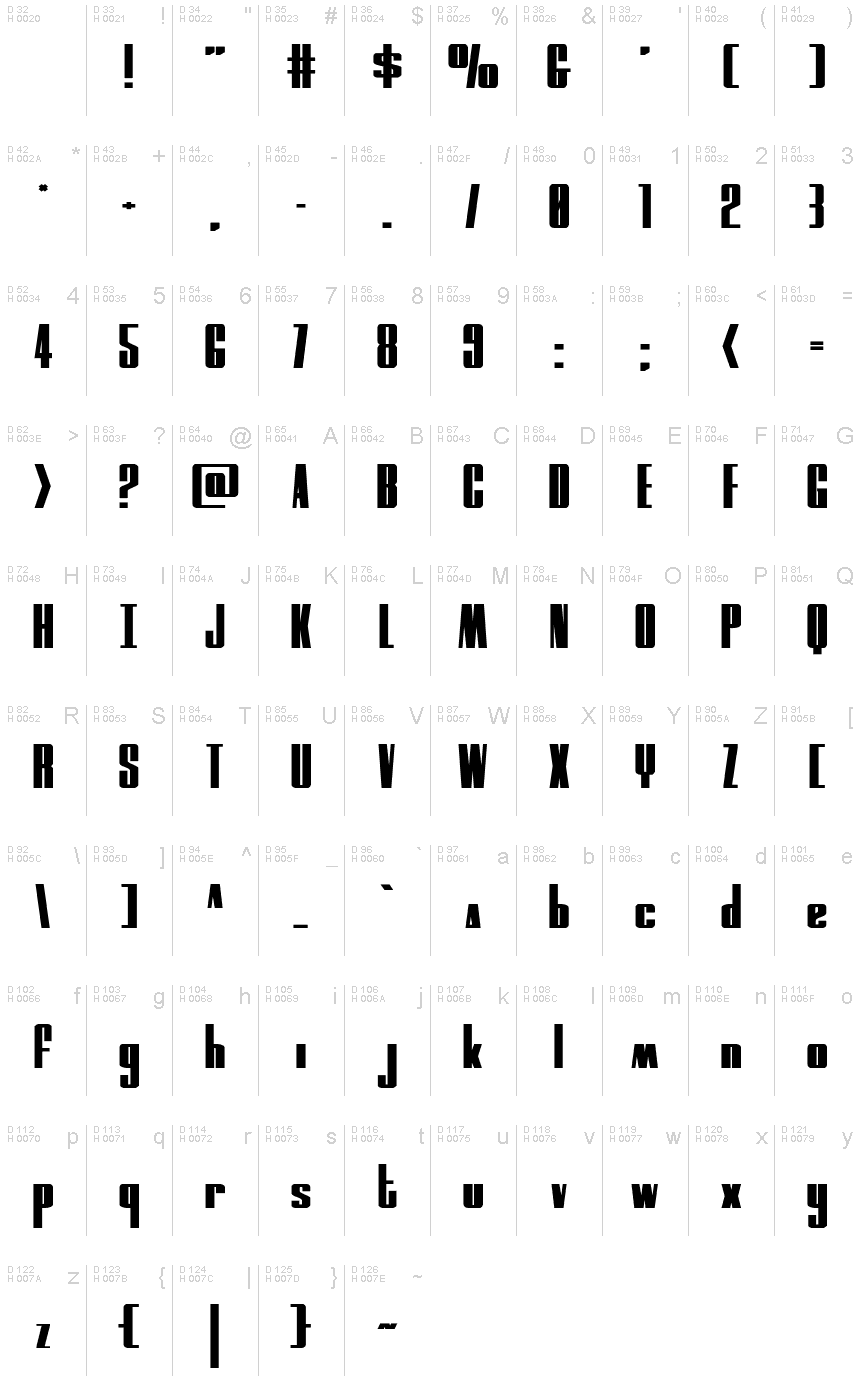
MOON Runner Expanded
Moon Runner Expanded, a captivating futuristic font crafted by Daniel Zadorozny of Iconian Fonts, exudes a bold, condensed presence. With its distinctive angular forms and striking visual impact, this display typeface commands attention, seamlessly blending modern aesthetics with a touch of retro-futuristic charm.
Featuring a clean, streamlined appearance, Moon Runner Expanded's strong letterforms and well-balanced proportions create an impactful, eye-catching impression. The font's condensed nature enhances its versatility, making it an excellent choice for headlines, logos, and attention-grabbing design elements.
Versatile in application, Moon Runner Expanded shines in a variety of contexts, from sci-fi-inspired branding to sleek, dynamic layouts. Its bold presence lends itself well to headlines, signage, and product packaging, while its condensed design ensures efficient use of space without compromising legibility.
Featuring a clean, streamlined appearance, Moon Runner Expanded's strong letterforms and well-balanced proportions create an impactful, eye-catching impression. The font's condensed nature enhances its versatility, making it an excellent choice for headlines, logos, and attention-grabbing design elements.
Versatile in application, Moon Runner Expanded shines in a variety of contexts, from sci-fi-inspired branding to sleek, dynamic layouts. Its bold presence lends itself well to headlines, signage, and product packaging, while its condensed design ensures efficient use of space without compromising legibility.